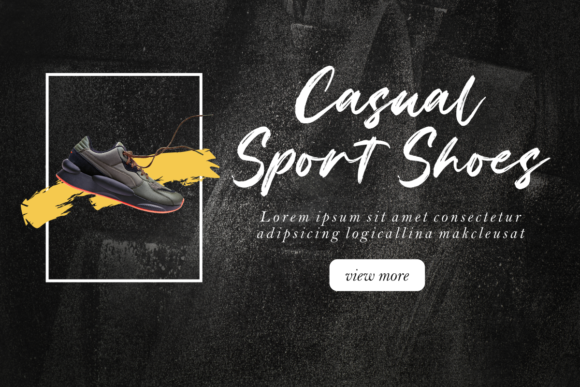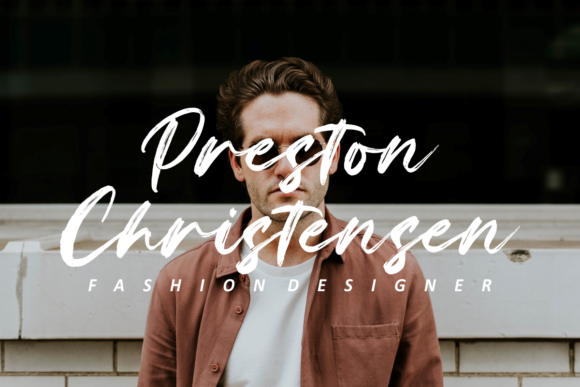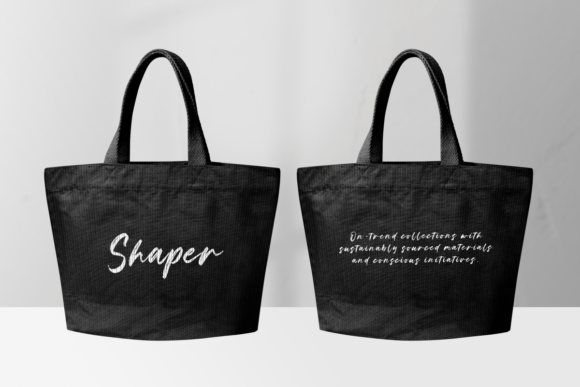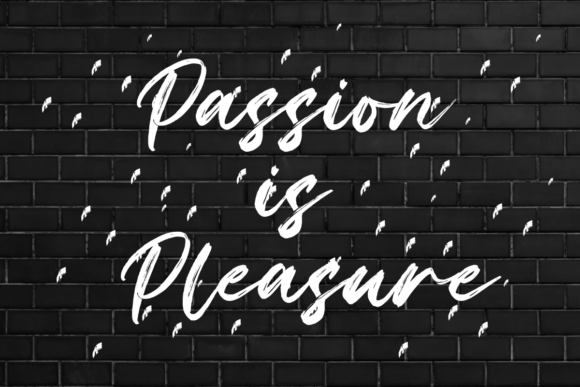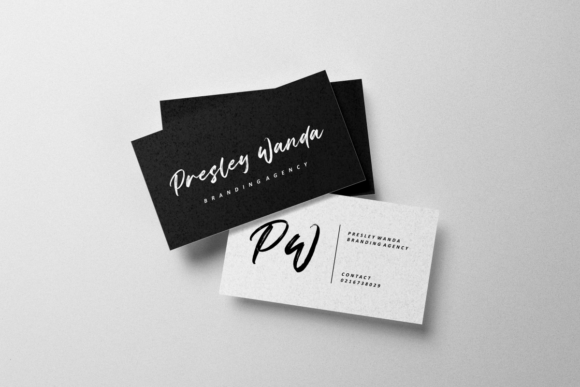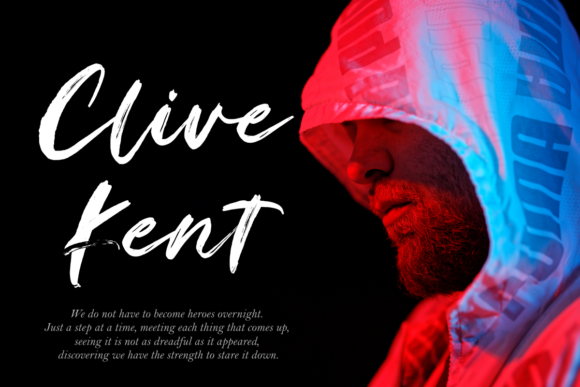
Introducing Changer Font: The Perfect Handwritten Font for Your Creative Projects
Are you a designer or crafter looking for a beautiful and elegant font to add a personal touch to your projects? Look no further than Changer Font! This stunning brushed handwritten font is perfect for a variety of creative endeavors, from wedding invitations and thank you cards to quotes, greeting cards, logos, and business cards.
What Makes Changer Font So Special?
Changer Font is a unique and beautiful font that features a lovely flow, making it perfect for adding a touch of elegance and sophistication to your designs. Its brushed handwritten style gives it a personal and organic feel, making it ideal for projects that require a more human touch.
Perfect for Wedding and Event Invitations
Wedding invitations, save-the-dates, and other event invitations can be a great way to showcase the Changer Font. Its elegant and sophisticated style makes it perfect for formal events, while its playful and whimsical feel makes it suitable for more casual gatherings. Whether you’re designing invitations for a wedding, baby shower, or birthday party, Changer Font is sure to make a lasting impression.
Add a Personal Touch to Your Designs
One of the best things about Changer Font is its ability to add a personal touch to your designs. Whether you’re creating custom stationery, greeting cards, or quotes, this font is sure to make your project stand out. Its unique and handwritten style gives it a personal feel that’s hard to replicate with other fonts.
Great for Logos and Business Cards
Changer Font is not just limited to personal projects; it’s also a great choice for businesses looking to add a touch of elegance and sophistication to their branding. Its unique style makes it perfect for logos, business cards, and other marketing materials. Whether you’re a small business owner or a freelancer, Changer Font can help you establish a professional and stylish brand identity.
Key Features of Changer Font
- Beautiful brushed handwritten font
- Lovely flow and elegant style
- Perfect for wedding invitations, thank you cards, quotes, and more
- Great for logos, business cards, and other marketing materials
- Unique and personal style that’s hard to replicate
Tips for Using Changer Font
Here are a few tips for getting the most out of Changer Font:
- Use it for headlines and titles to add a touch of elegance and sophistication
- Pair it with a simple font for body text to create a beautiful contrast
- Use it consistently across your designs to establish a strong brand identity
| Font Name | Changer Font |
| Author | Fikryal Studio |
Changer Font is a beautiful and elegant font that’s perfect for designers and crafters looking to add a personal touch to their projects. Its unique brushed handwritten style makes it perfect for a variety of creative endeavors, from wedding invitations and thank you cards to logos and business cards. With its lovely flow and sophisticated style, Changer Font is sure to make a lasting impression.